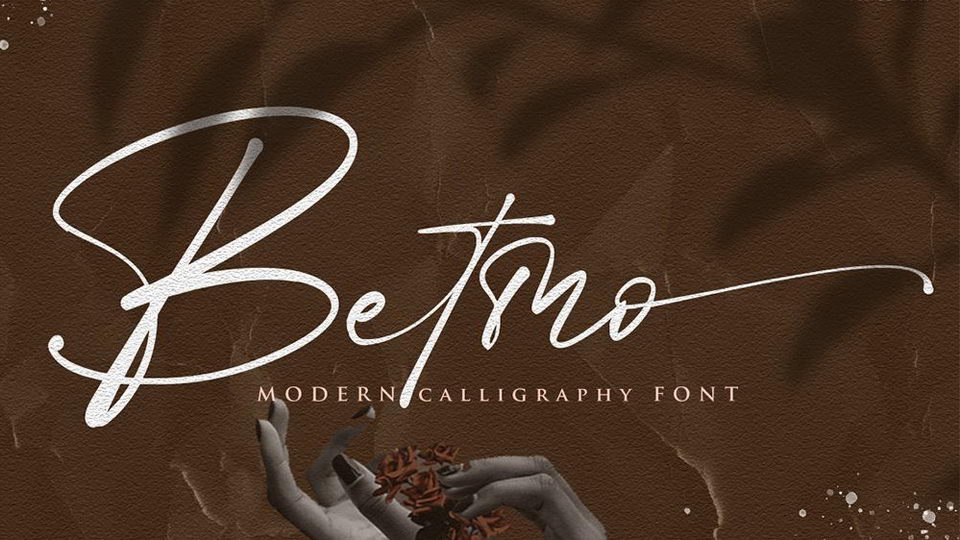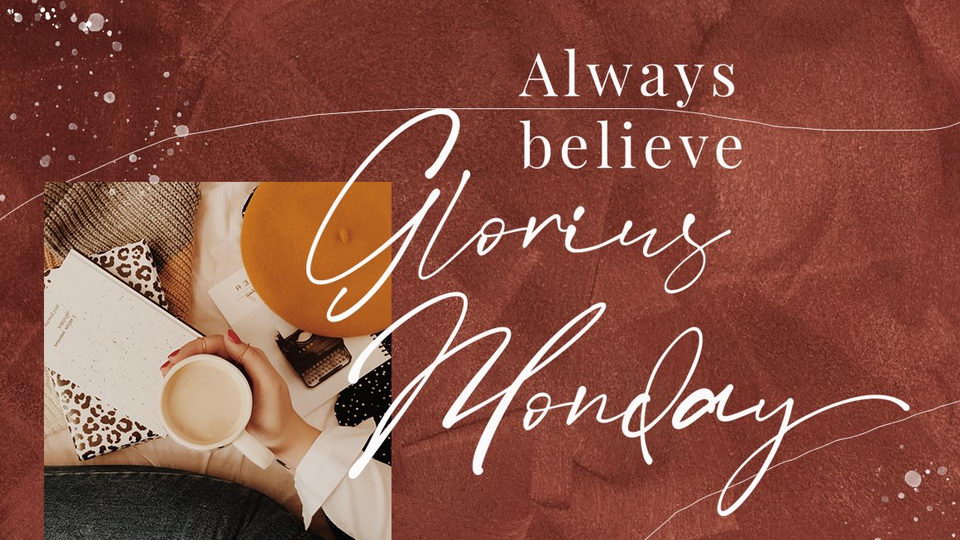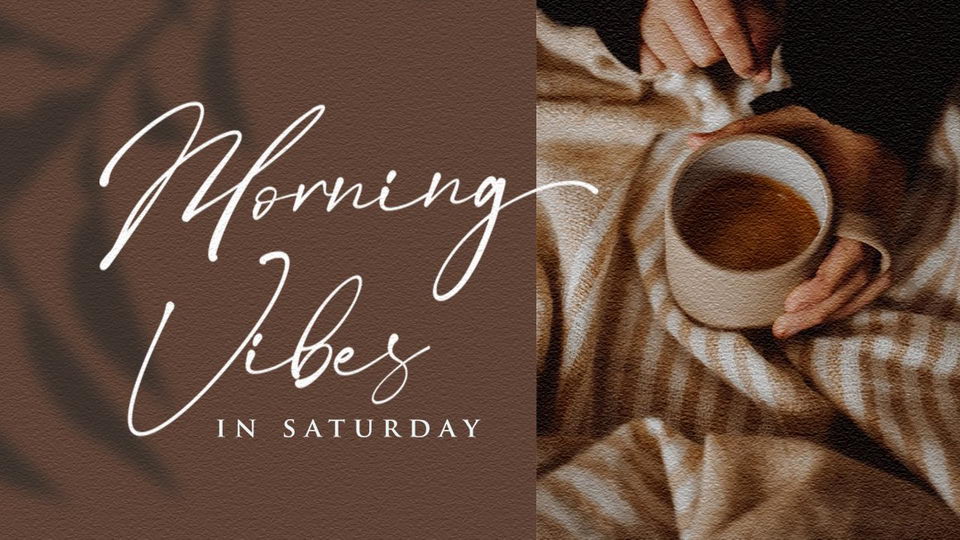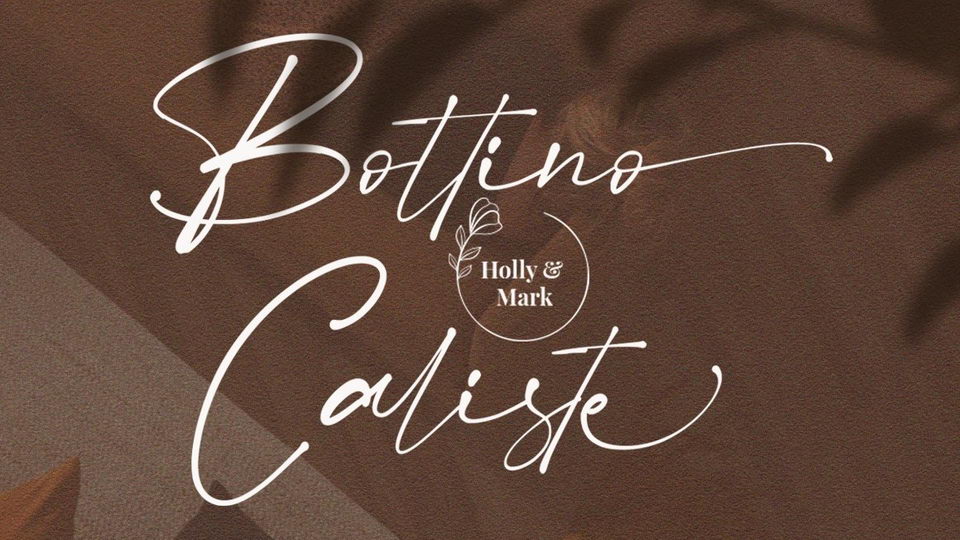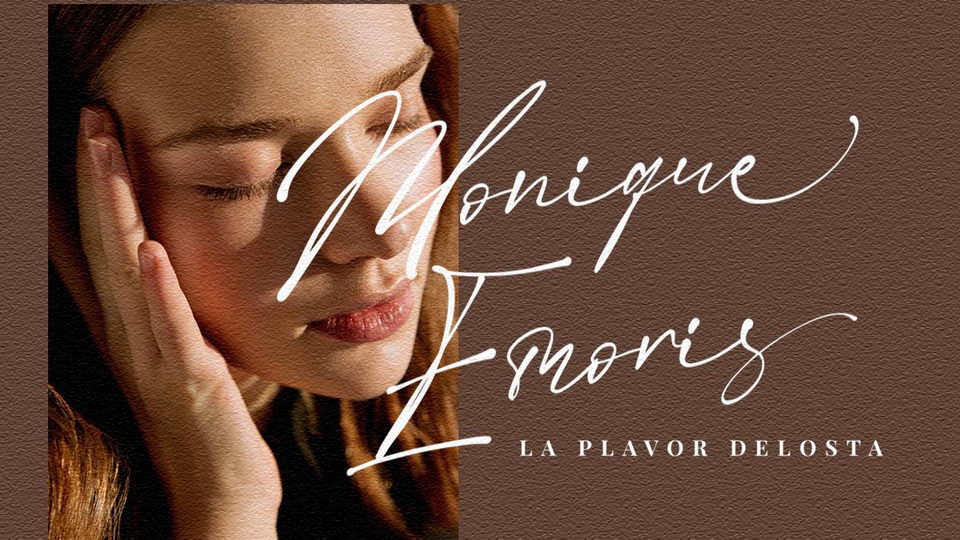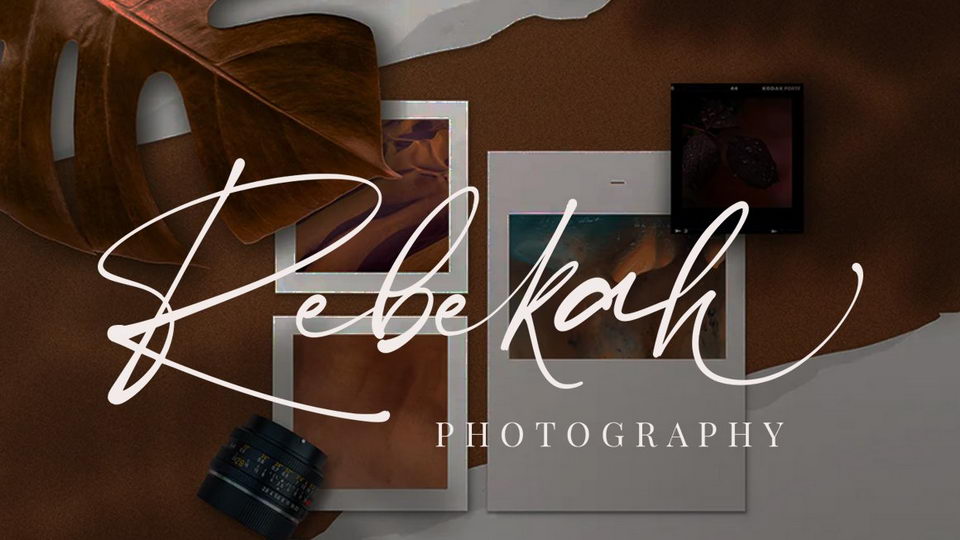
Betmo is a glorious signature script with beautiful ligature and alternate font inspired by a luxury fashion. It’s a contemporary handwriting font ready to add unique look and bloom on your design.
Betmo easily cooperating together for magazine, movies or book titles, photography, wedding invitation, restaurant menu or t-shirt design, fashion and cosmetics products.